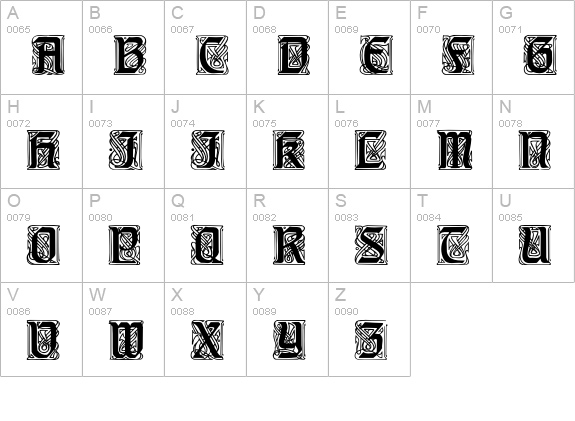
CarrickCaps Font Details
CarrickCaps font is a stunning display typeface that exudes elegance and sophistication. With its stylish and unique letterforms, CarrickCaps is perfect for adding a touch of class to your designs. This versatile font can be used for a variety of projects, from invitations and logos to packaging and branding. What sets CarrickCaps apart is its exquisite attention to detail and timeless appeal. Each letter is meticulously crafted to create a harmonious and balanced look, making it a standout choice for any design project. Whether you're looking to make a statement or simply add a touch of flair, CarrickCaps is sure to impress. Best of all, CarrickCaps is available for free download at FontsMarket.com. This means you can elevate your designs without breaking the bank. Don't miss out on the opportunity to add this stunning font to your collection and take your projects to the next level. Download CarrickCaps today and unleash your creativity like never before.